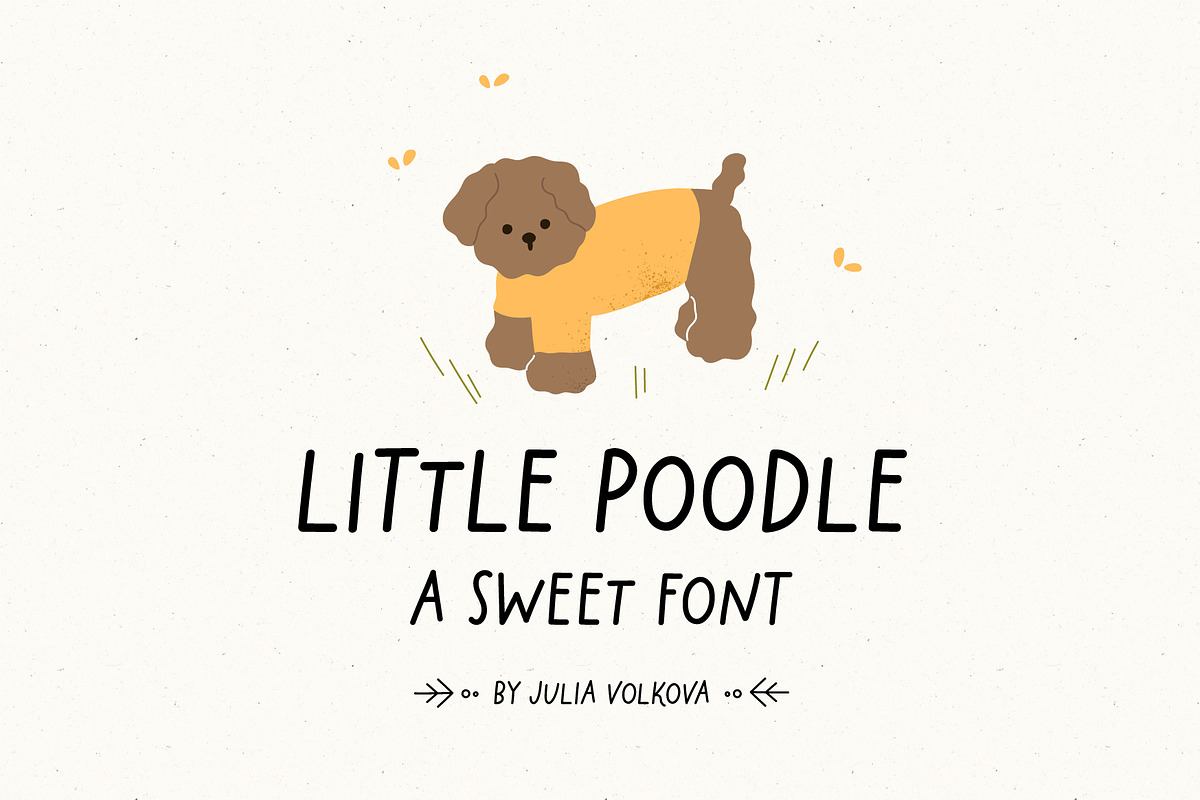
Little Poodle | Sweet Font Free Download is a charming and playful handwritten typeface that brings warmth and sweetness to your designs. With its soft curves, bouncy strokes, and delightful personality, this font is perfect for branding, children's books, party invitations, social media content, and handmade product labels.
Its friendly and whimsical style adds a touch of joy and elegance, making it ideal for projects that need to feel inviting and heartwarming. Whether you’re crafting adorable logos, creating joyful quotes, or designing for a fun brand, Little Poodle brings a fresh, loving vibe to your typography.